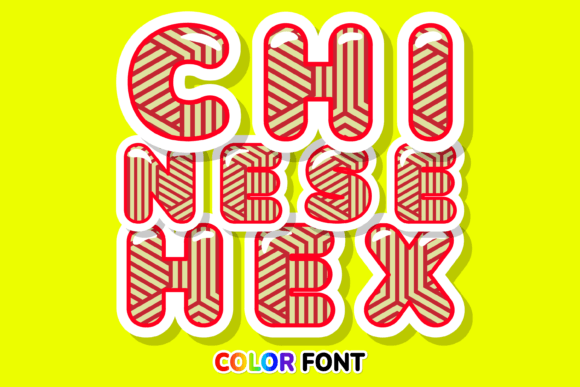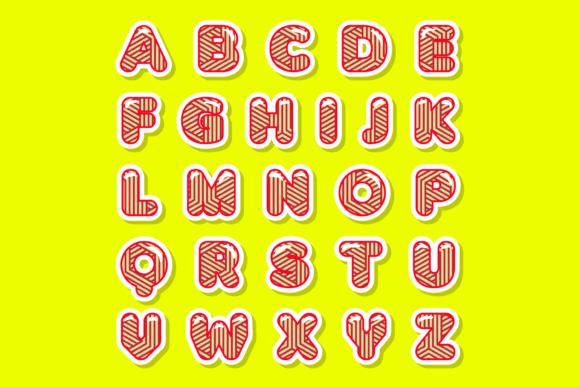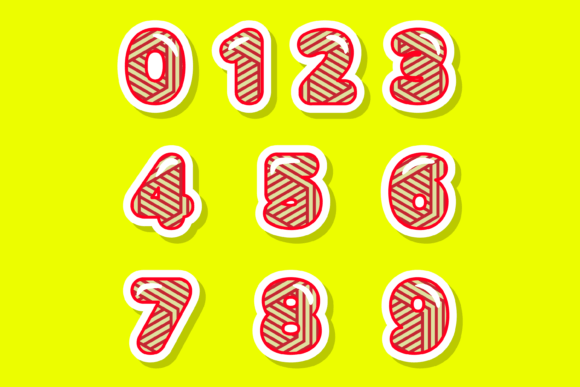
Chinese Hex Font
About Chinese Hex Font
Chinese Hex is a captivating and culturally inspired color font that pays homage to the vibrant traditions of the Lunar New Year. Whether you’re working on custom designs, DIY crafts, or any creative project that calls for a touch of Chinese culture and a lovely aesthetic, Chinese Hex is an excellent choice that will add a unique and eye-catching element to your work.
The font’s design draws inspiration from Chinese calligraphy and the intricate patterns found in Chinese culture. Each letter is beautifully adorned with hexagonal shapes and vibrant colors, creating a visually stunning and harmonious composition. The use of traditional Chinese colors such as red, gold, and black adds symbolism and cultural significance to your designs.
Chinese Hex is not only visually appealing but also highly versatile. It can be used in various applications, including invitations, banners, posters, greeting cards, and more. Its distinct style and cultural references make it particularly suitable for projects related to the Lunar New Year, Chinese festivals, or any design that seeks to celebrate Chinese culture.
The font’s customizable features allow you to adjust the size, spacing, and color of the hexagonal shapes, providing you with creative flexibility and the ability to tailor the font to your specific design needs. Its PUA encoding ensures easy access to all the unique glyphs and ligatures, making it convenient to incorporate into your projects.
By using Chinese Hex in your designs, you not only add a visually captivating element but also infuse your work with the rich cultural heritage of China. The font serves as a bridge between tradition and modernity, creating a harmonious blend that resonates with audiences and leaves a lasting impression.
Choose Chinese Hex as your go-to color font to bring a touch of Chinese culture and the Lunar New Year festivities to your creative projects. Its unique design, vibrant colors, and cultural references make it an amazing choice for any design that requires a lovely touch and a celebration of Chinese traditions. Let Chinese Hex inspire you and create designs that capture the spirit of the Lunar New Year in a visually captivating way.